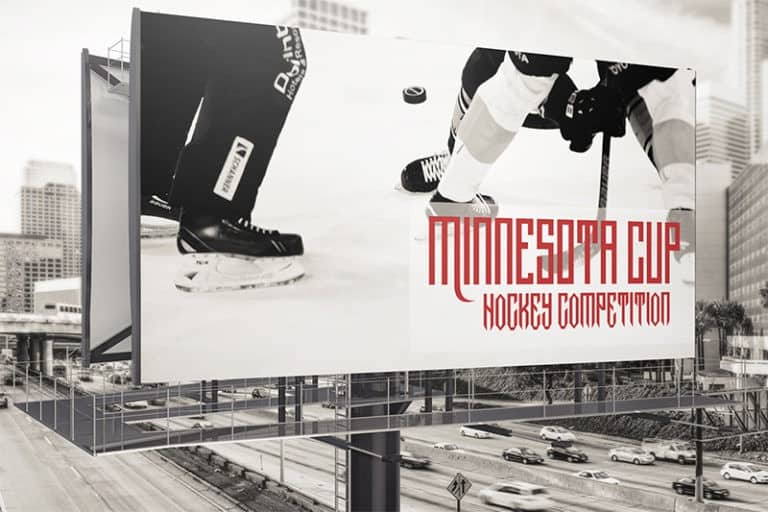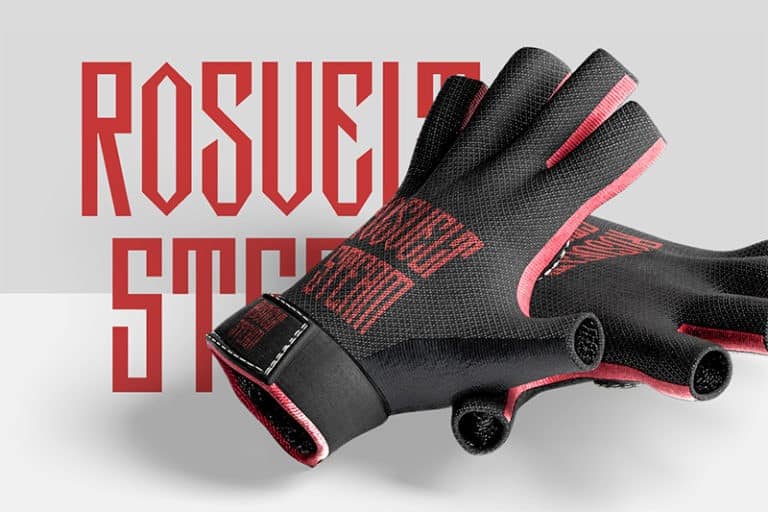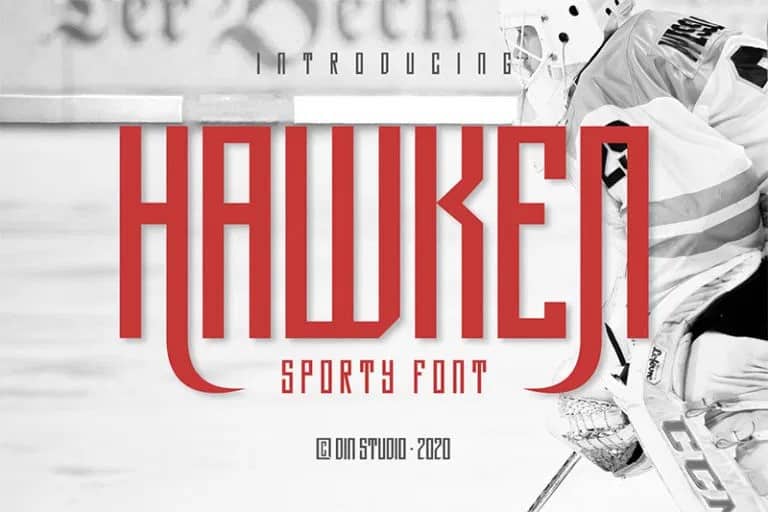
Hawken Display Font is a classic sport font. Made for any professional project especially that related to the sports. This font is a powerful sans serif display typeface created by Din Studio. Perfect for quotes, posters, logo, logotype, branding, business card, crafting needs, print, t-shirt, mug, merchandise, packaging, and many more.